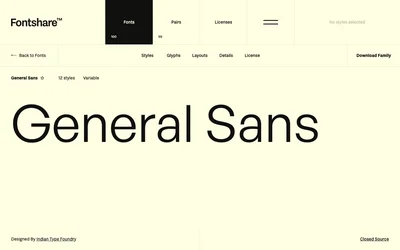
Acumin vs General Sans
General Sans is a popular open-source alternative to Acumin's neo-grotesque design. At 72% similarity, General Sans delivers a modern, clean aesthetic. Compare which works better for ui and editorial projects.
| Feature | Acumin | General Sans |
| Variable Font | No | Yes |
| Weights | Multiple | Variable (100-900) |
- Shares Acumin's modern character
- Variable font with continuous weight adjustment
- Delivers a modern, clean, neutral aesthetic
- Popular in enterprise-corporate design
- Designed specifically for ui and editorial